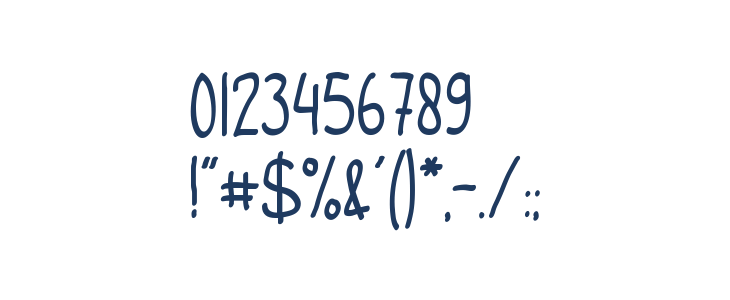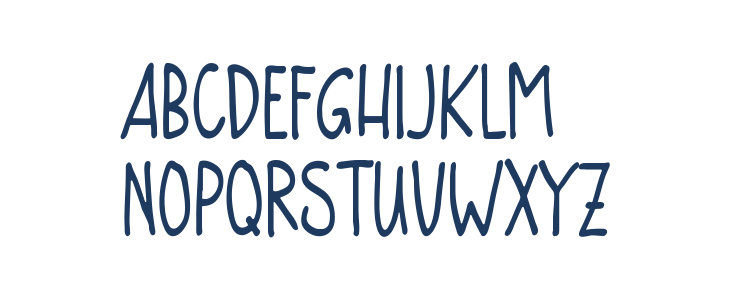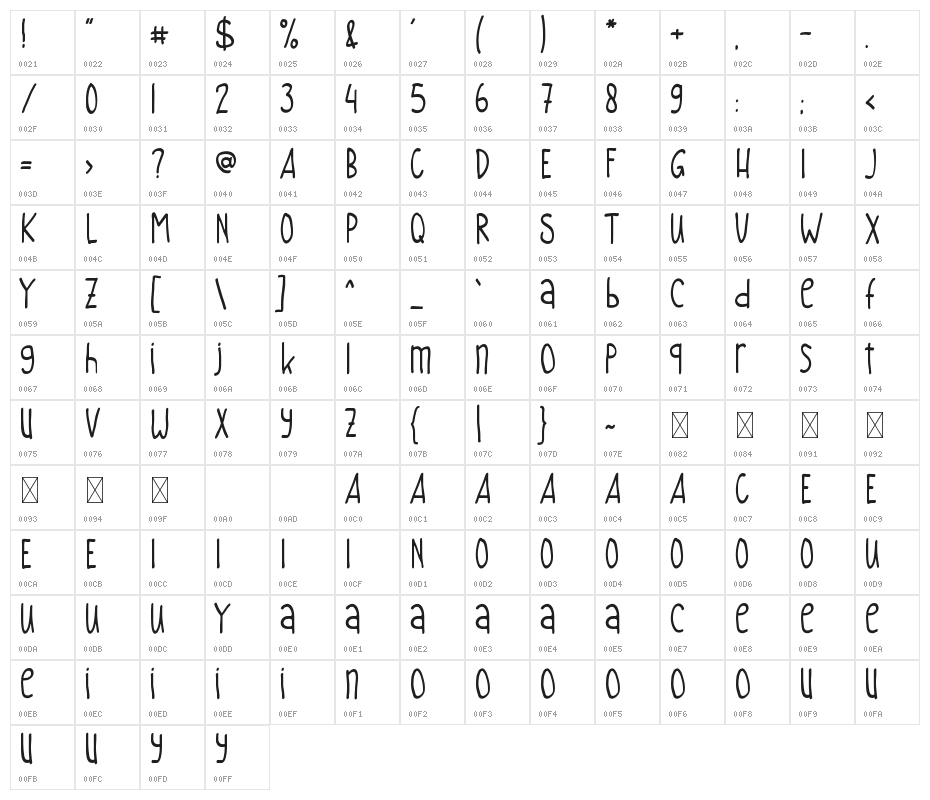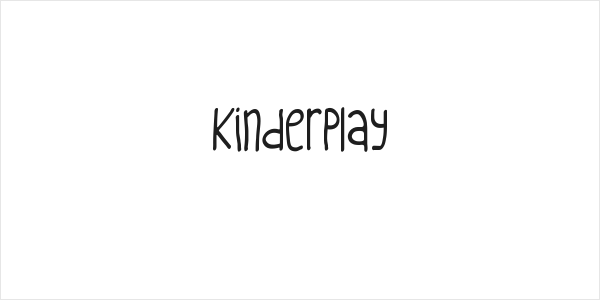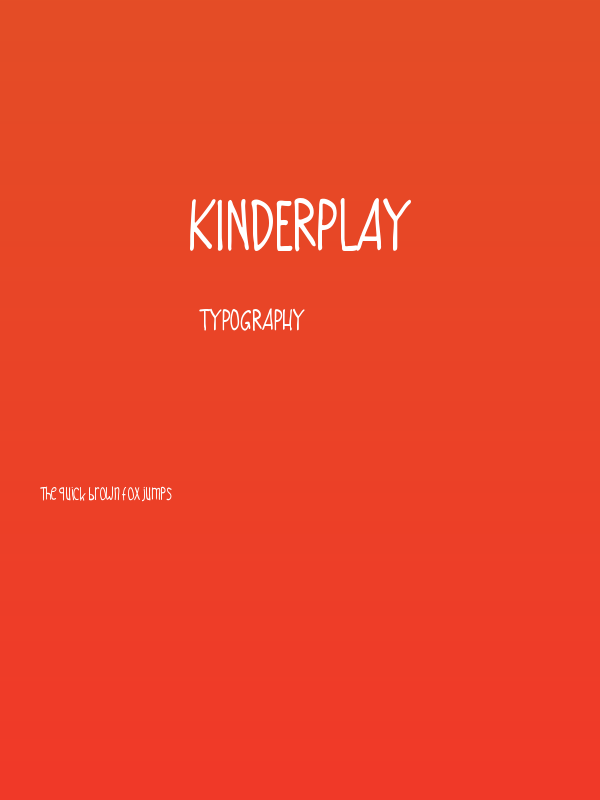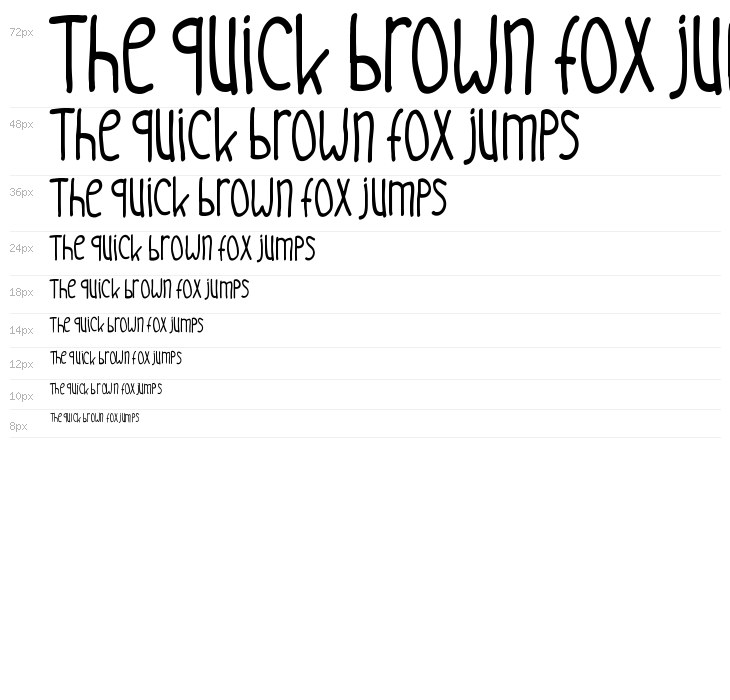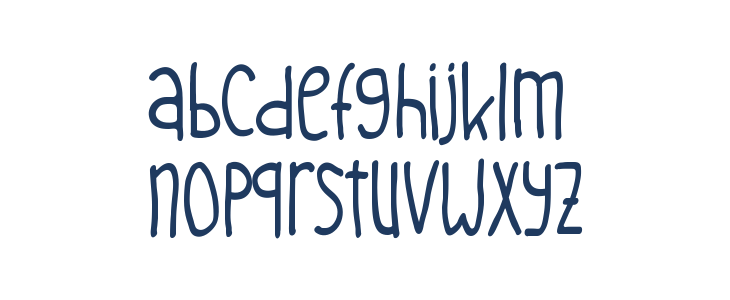
Kinderplay Font
Kinderplay Description
A playful, handwritten typeface with tall, narrow letters and rounded edges, giving it a childlike and informal appearance. The strokes are consistent in thickness, and the spacing between characters is generous, enhancing readability.
| Width | Condensed |
| Overall Style | Playful, Informal, Childlike |
| Use Case | Headlines, Posters, ChildrenΓ’β¬β’s materials, Informal branding |
| Proposed Projects | ChildrenΓ’β¬β’s books, educational materials, playful branding, posters, greeting cards. |